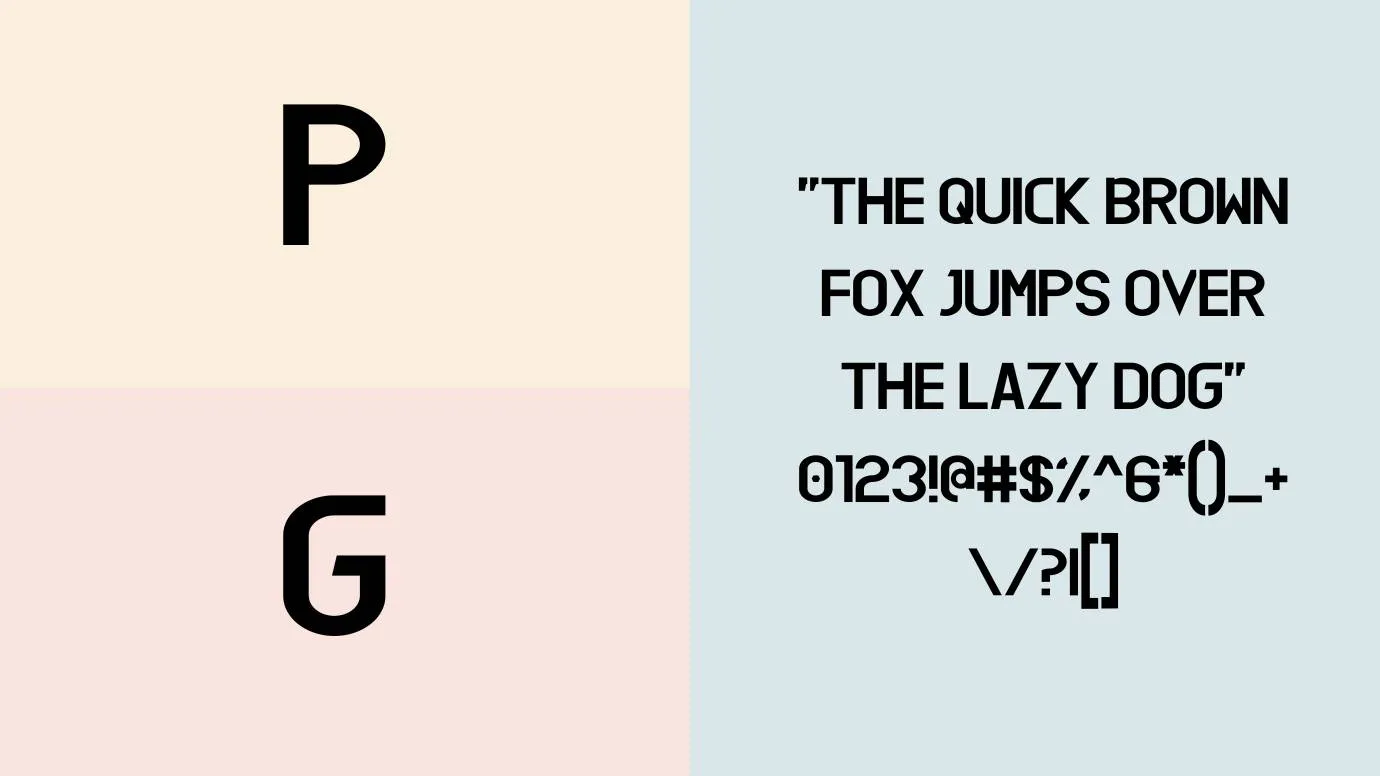
Begal Font is a very attractive typeface it was designed by Danur Sambogo and manufactured by Sambogo Creative. You can make so many amazing projects by using this font it is good for both personal and commercial projects.
It has amazing features like it contains 224 characters, 235 glyphs, and 2048 units per Em. The weight the width of this font are medium(normal). You can also use this font for pairing with other fonts such as Esmeralda font to give a more attractive and elegant look to your projects.
Begal Font